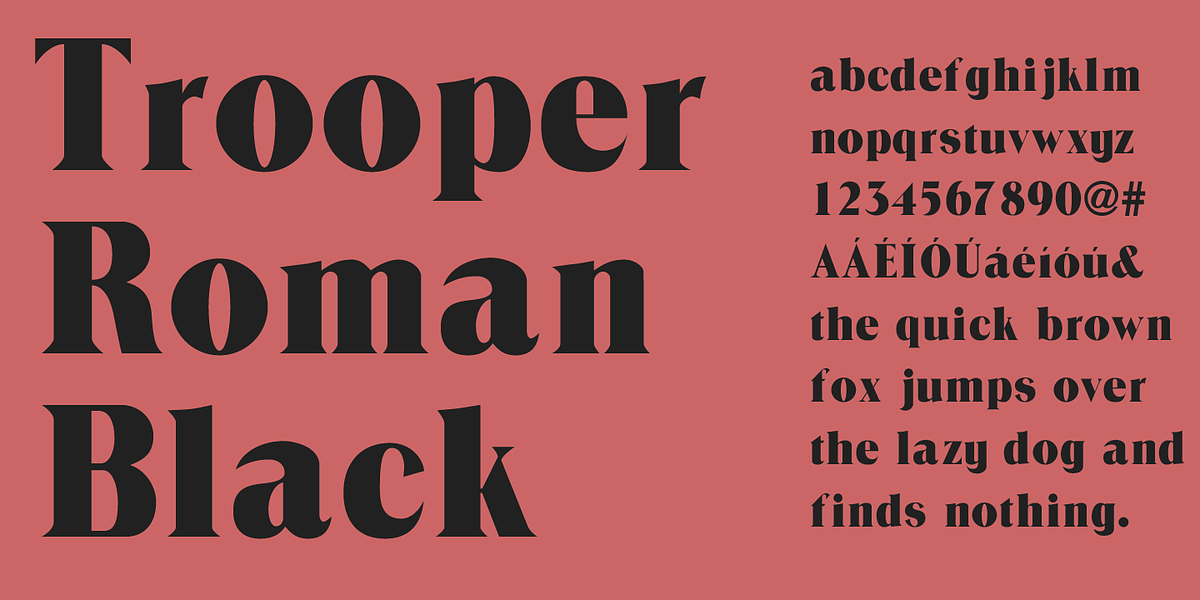
Trooper Roman Black
This font is characterized by its thin lines and falls under the category of display serif fonts. Its retro theme makes it suitable for vintage-inspired designs.